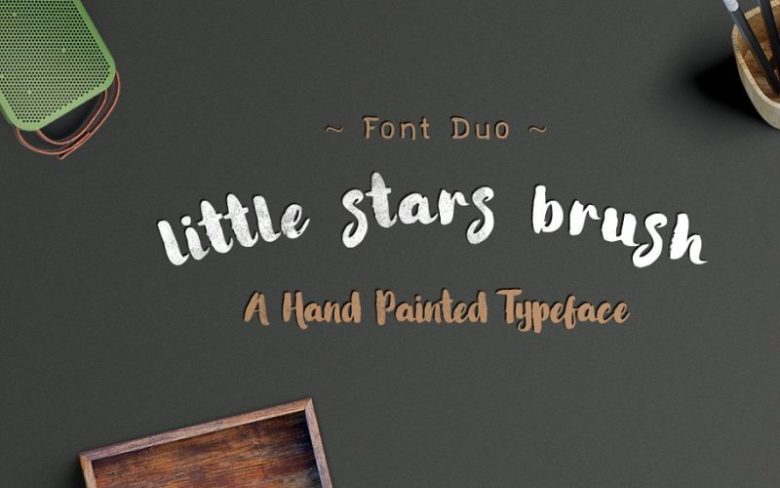
Little Stars Brush Font
Hello there.. New Present Little Stars Font Duo is a Bold Hand Brush, modern Brush, which was created to meet the needs of your next design project. Little Stars Font Duo, Can used for various purposes. such as the title, logo, correspondence, wedding invitations, letterhead, signage, labels, newsletters, posters, badges, t-shirt, etc.